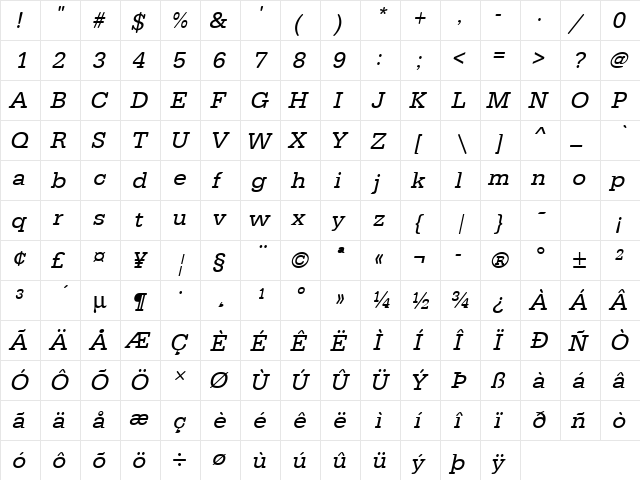
URWTypewriterT Oblique
Design Context for URWTypewriterT Typeface
URWTypewriterT brings the precise, column-aligned rhythm of monospaced typography to designs that value technical clarity and systematic order. Its italic angle brings a sense of urgency and motion to the letterforms.
A natural fit for code editors, technical documentation, developer-focused branding, and terminal-inspired UI.
Pro Tip: Pair URWTypewriterT with a proportional sans for UI contexts where code-style labels and regular body copy need to coexist.